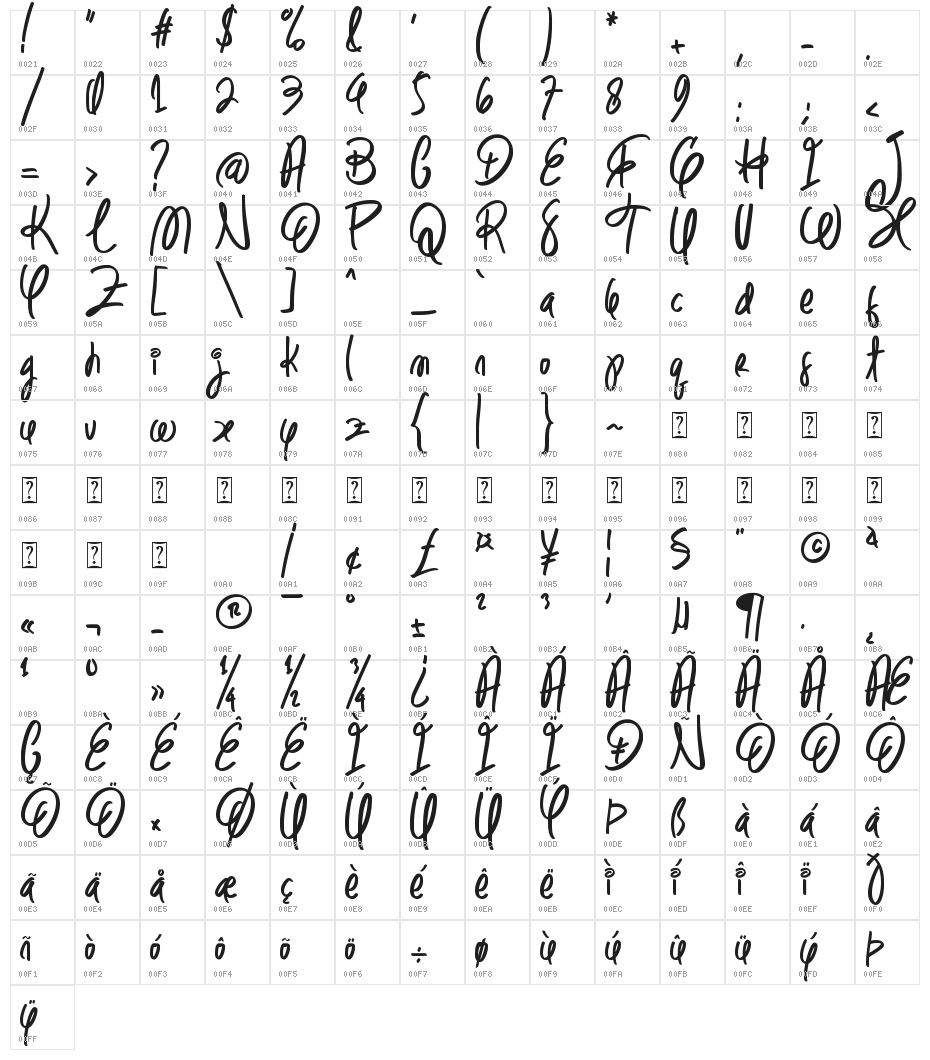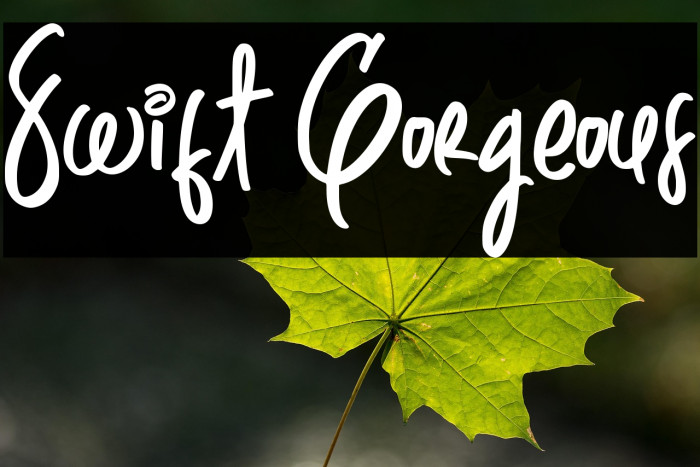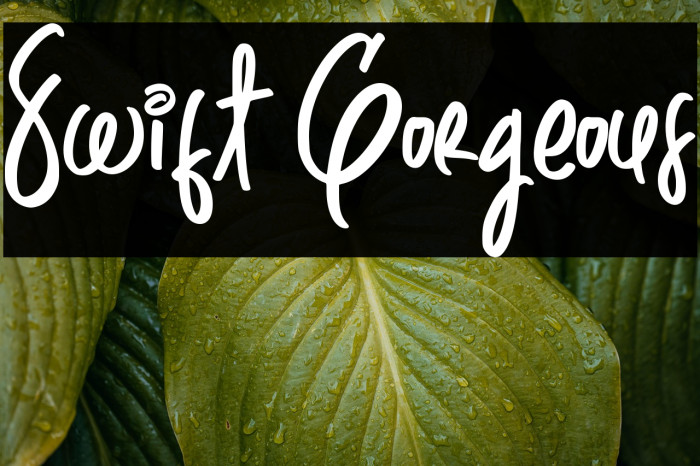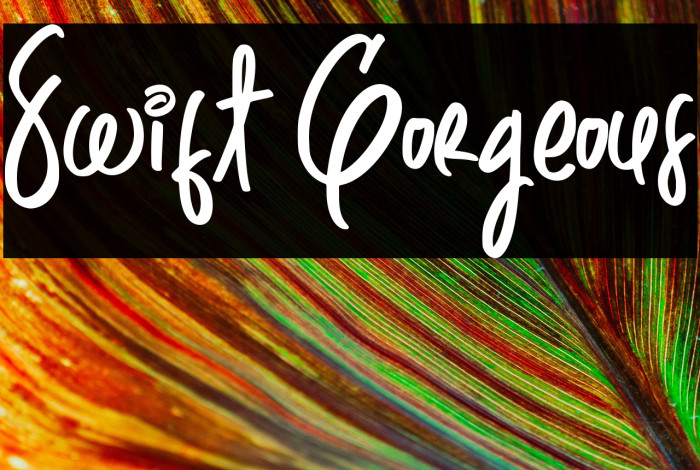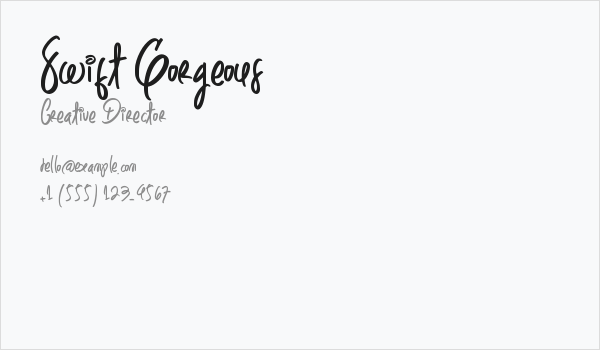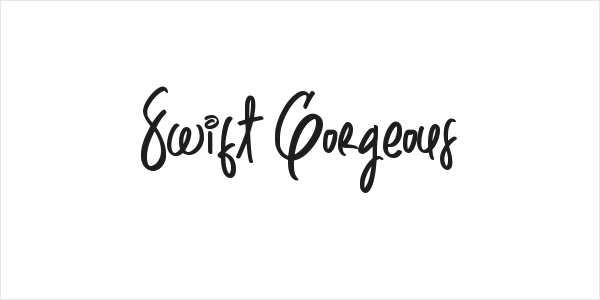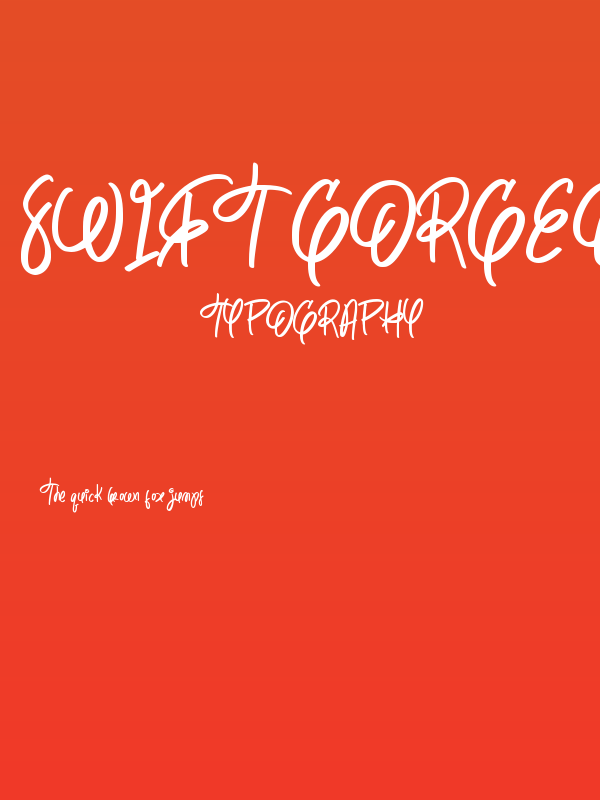
Swift Gorgeous Font
Swift Gorgeous Description
This font exudes a dynamic and energetic style, characterized by its fluid, handwritten appearance. The letters are bold and expressive, with a playful yet sophisticated flair. The uppercase characters maintain a consistent height, while the lowercase letters exhibit a more varied and whimsical structure. The numbers and special characters are crafted with the same lively spirit, ensuring a cohesive look across all elements. This font is perfect for projects that require a personal touch, combining elegance with a sense of spontaneity.
| Proposed Projects | Ideal for greeting cards, invitations, branding, and social media graphics. |